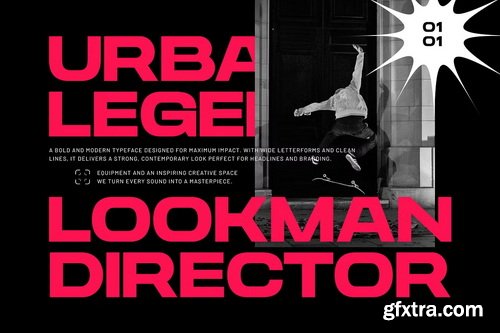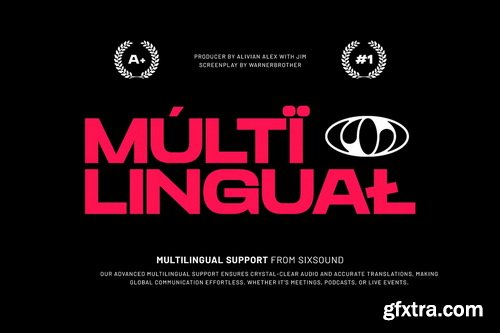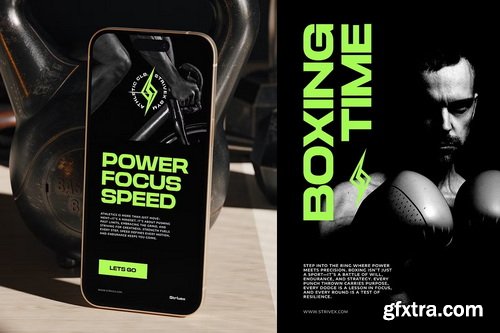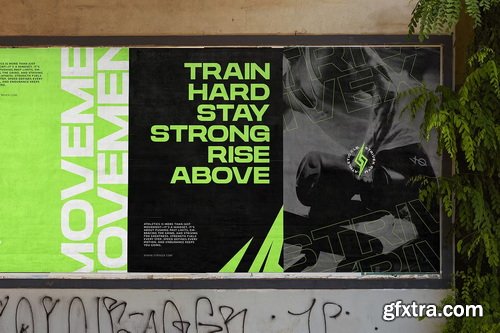
CreativeMarket - Sixsound – Expanded Sans Serif Font
Sixsound is a modern expand sans serif font designed with a modern futuristic. With bold, clean lines and wide proportions, it embodies the essence of technology, innovation, and modern gaming culture, it's perfect for game titles, tech brand logos, esports designs, futuristic posters, app interfaces, sci-fi movie covers, streaming graphics, merchandise, cutting-edge branding and any projects that demand a strong, futuristic look. Comes with uppercase and lowercase letters, punctuation, numerals, ligatures, stylistic alternates, and multilingual support. Each character is crafted for high readability while maintaining a futuristic and bold impression across all platforms, offers high-end quality perfect for designers, developers, brands, and creatives who want to inject a modern, high-energy, tech-savvy feel into their work.